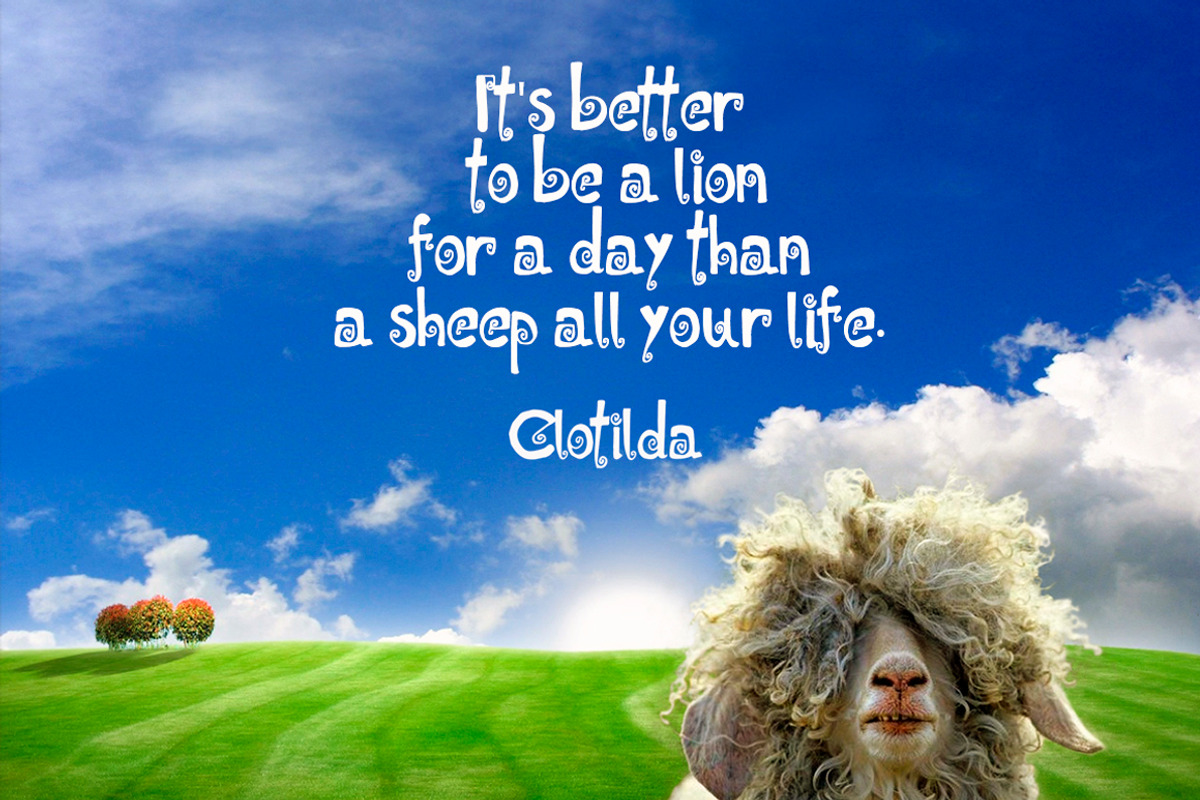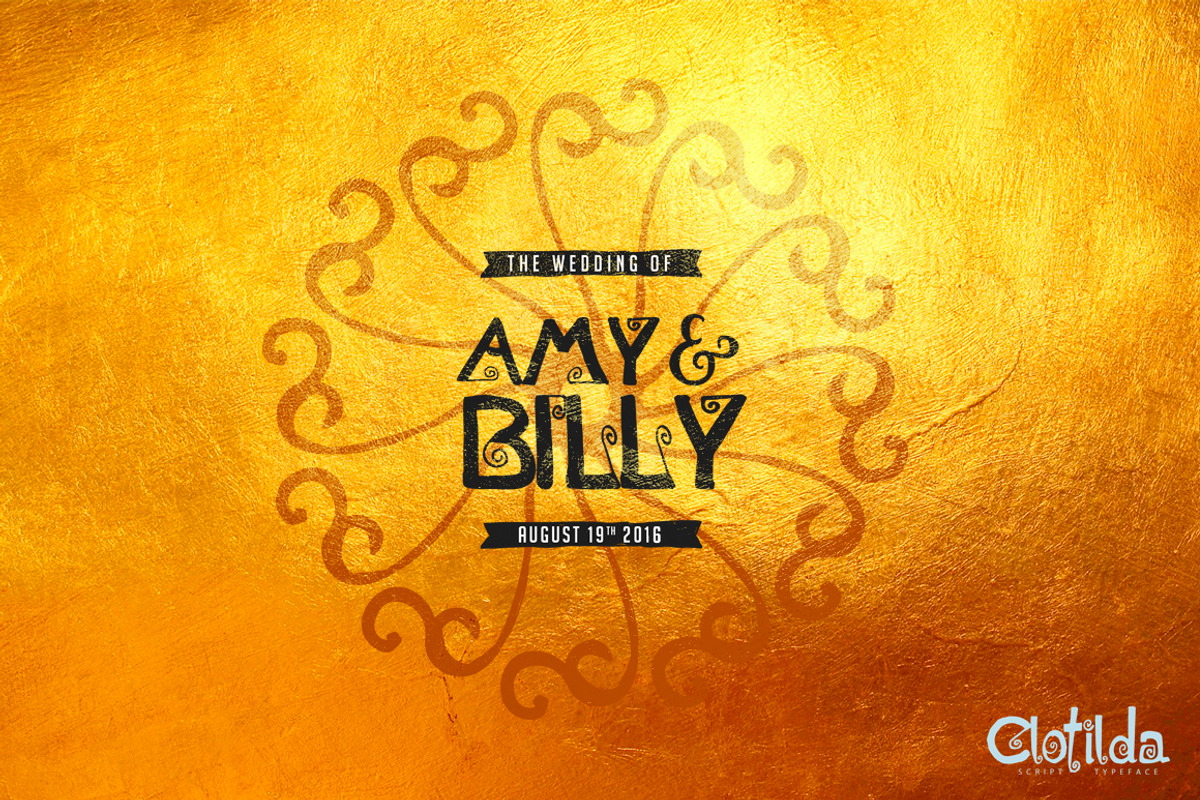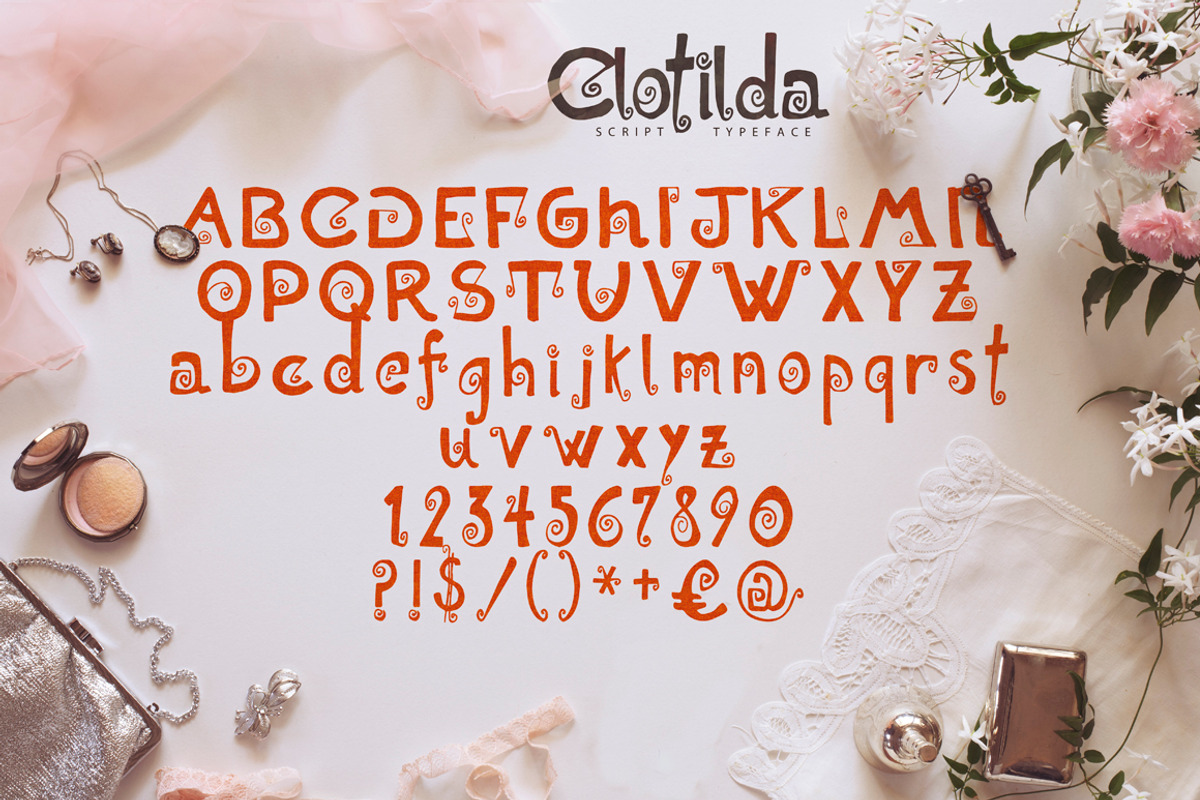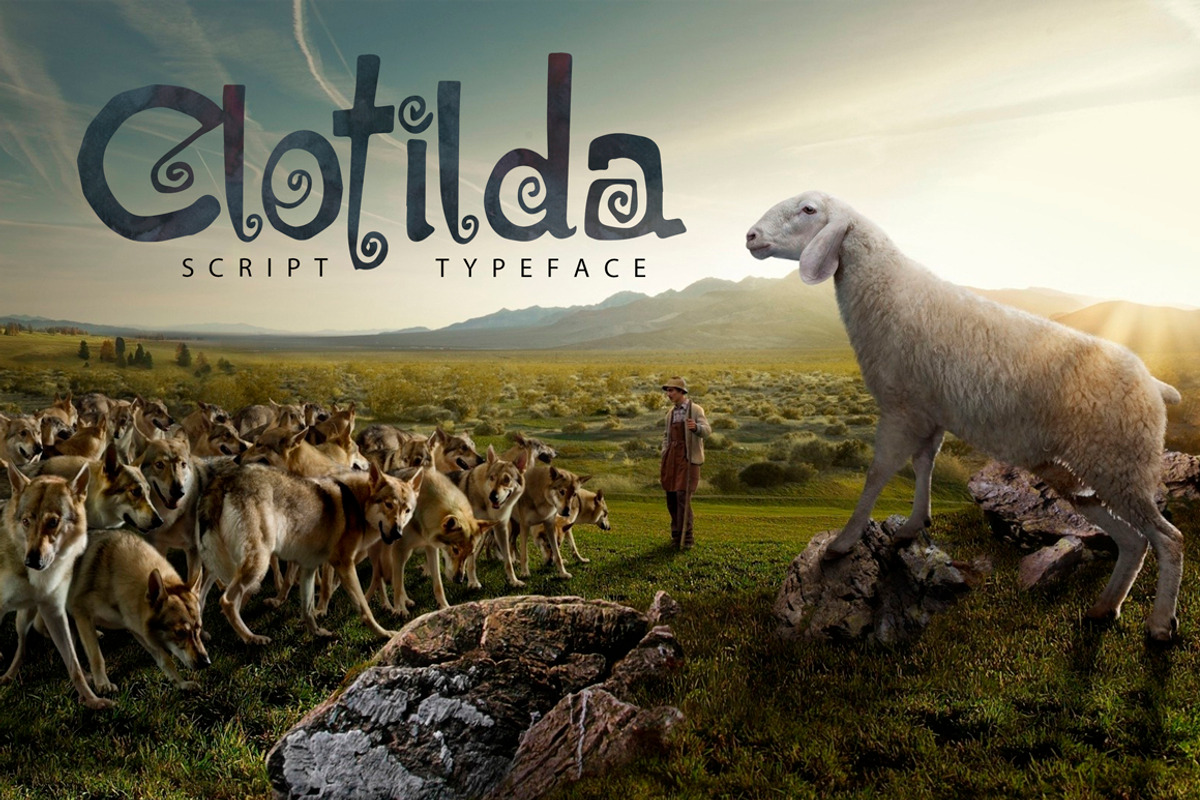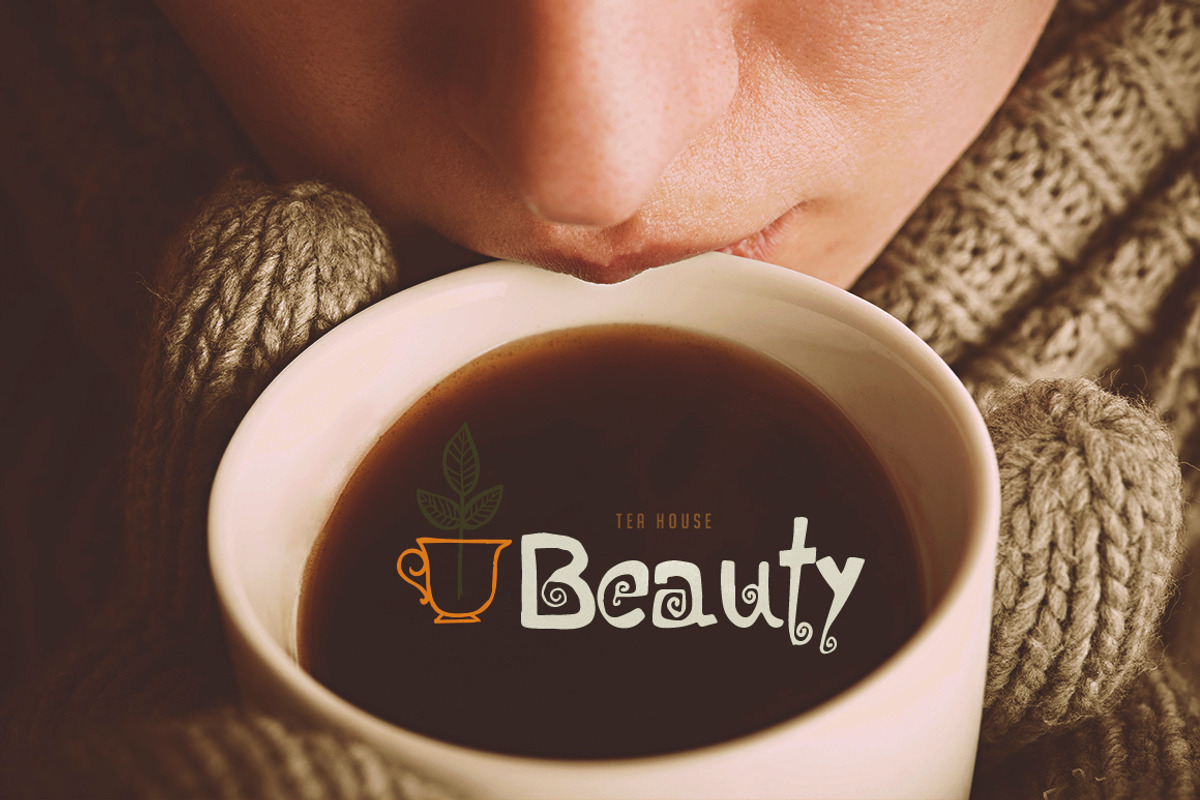
Clotilda Script Typeface
Clotilda Script Typeface by MoonfishStudio is a font selected for branding, posters, packaging, typography.
Why Clotilda Script Typeface is worth a look
Clotilda Script Typeface by MoonfishStudio fits naturally into Branding, posters, packaging, typography.